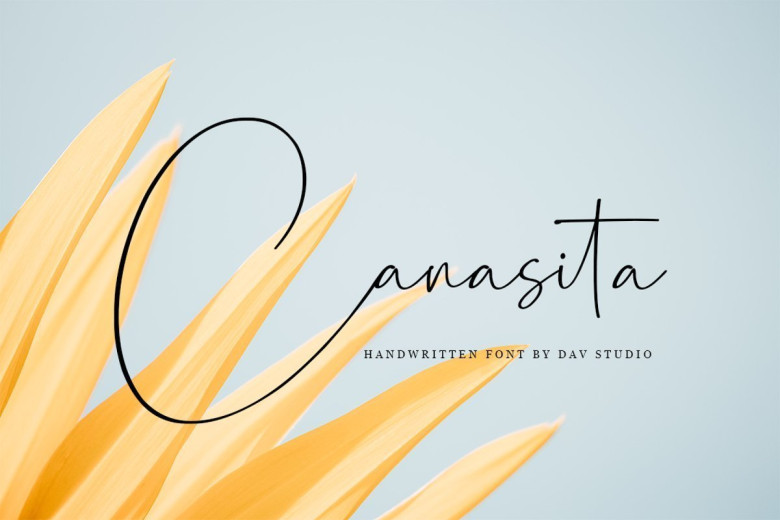
Canasita Signature Handwritten Font
Canasita Signature Handwritten Font is made to resemble hand scratches, so it looks like a natural style like your own hand scratches. Canasita offer beautiful typographic harmony for a variety of design projects, including watermark, logos,branding, wedding designs, social media posts, advertisements, product designs, magazines and others.